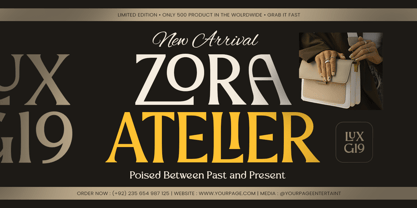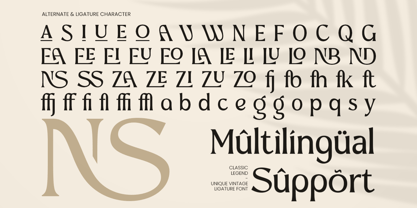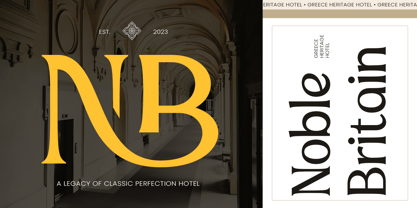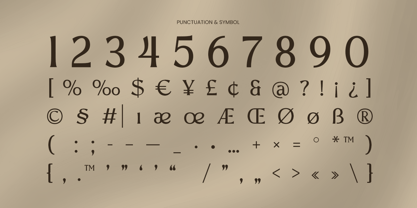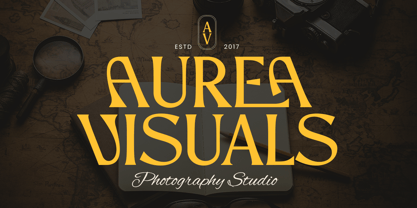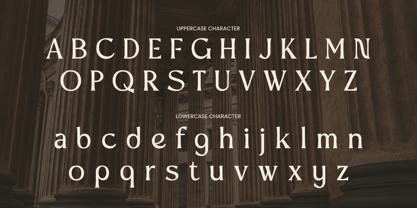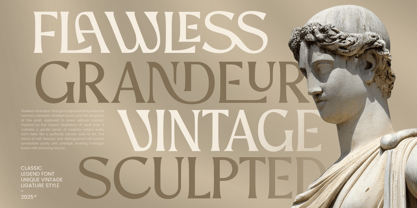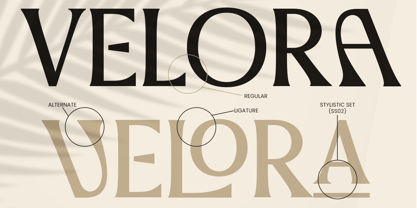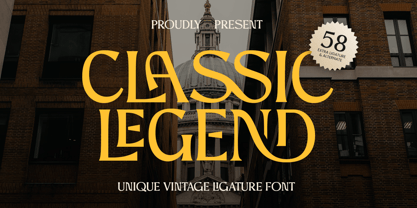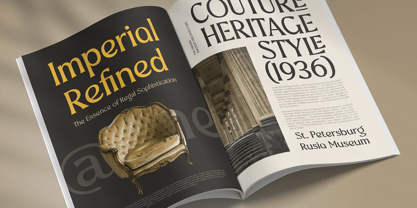
CLASSIC LEGEND is a unique vintage ligature font crafted to deliver timeless character with a refined, old-school attitude. Built with distinctive letterforms and stylish ligatures, this typeface brings an authentic heritage feel—perfect for brands that want to look established, confident, and memorable.
Designed for logo design and brand identity, CLASSIC LEGEND works beautifully across product packaging, labels, badges, emblems, posters, signage, and editorial headlines. Its vintage personality makes it ideal for coffee brands, barbershops, craft goods, apparel, whiskey themes, handmade products, and classic-inspired merchandise.
With its ligature-driven style, CLASSIC LEGEND adds extra personality and flow to wordmarks, helping your typography feel more custom, crafted, and premium—whether used in print or digital campaigns.
CLASSIC LEGEND – Vintage Ligature Font Features
Unique vintage letterforms with heritage-inspired character
Stylish ligatures for custom-looking logotypes
Perfect for branding, badges, labels, and packaging
Great for posters, signage, headlines, and editorial covers
Includes uppercase, lowercase, numerals, and punctuation
Strong readability with bold, classic presence
OpenType features for advanced typographic control
Make your brand feel iconic with CLASSIC LEGEND—built for vintage ligature logos and timeless identity. 🏺✨
Classic Legend